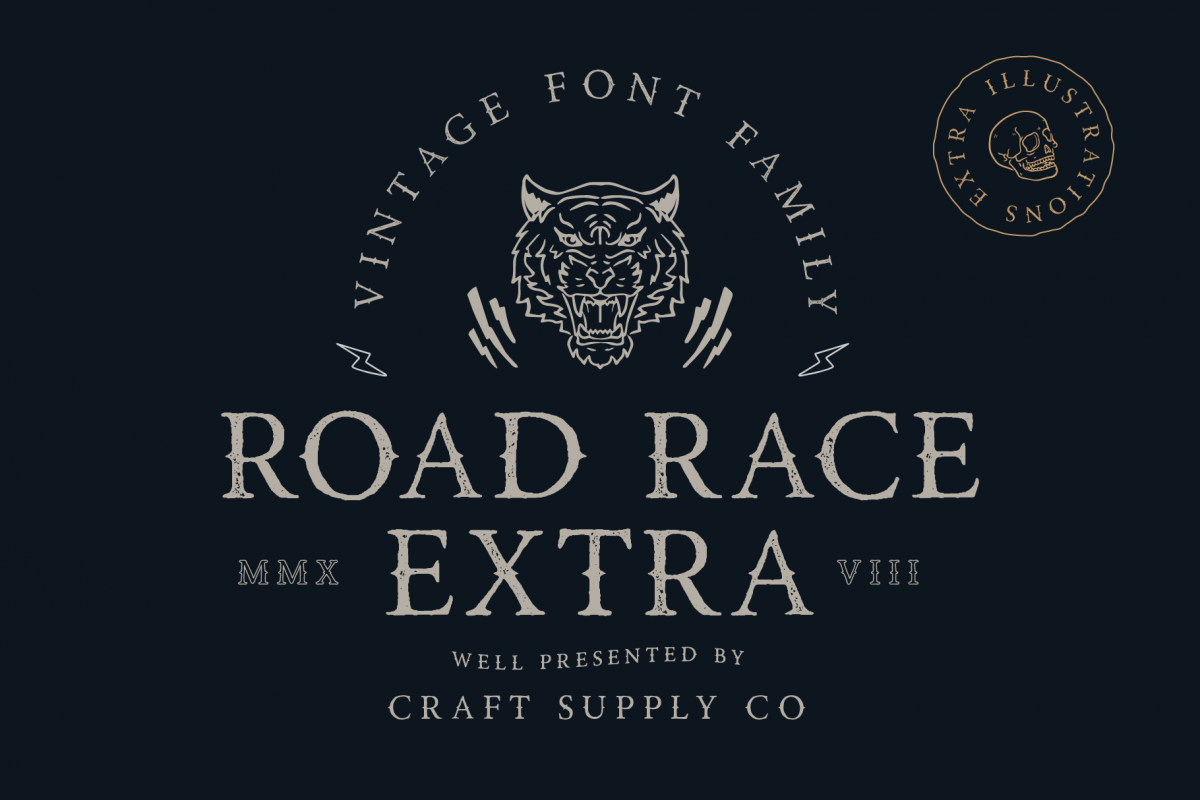
Road Race Extra Font Family Bonus Illustrations
⚡Introducing Road Race Extra Font Family + Illustrations ⚡
Road Race Extra Font Family + Illustrations includes 4 Style Fonts. It can be used to create almost all types of design projects like print materials. Just use your imagination and some graphic design set in Extras, your project will become more alive and look great than ever with one of the Road Race Extra font.You want to make a greeting card or a package design, or even a brand identity, craft design, any DIY project, book title, wedding font, pop vintage design, retro design or any purpose to make your art / design project look pretty and trendy? Feel free to play with all the patterns and shape!
1. Road Race Extra Regular
2. Road Race Extra Outline
3. Road Race Extra Rough
4. Road Race Extra Stamp
5. Extras Illustrations
6. Extras Badges
1. All Caps Fonts
2. Standard Ligatures
4. Accents (Multilingual characters) (AÀÁÂÃÄÅCÇDÐEÈÉÊËIÌÍÎÏNÑOØÒÓÔÕÖUÙÜÚÛWYÝŸỲŸÆŒßÞ)